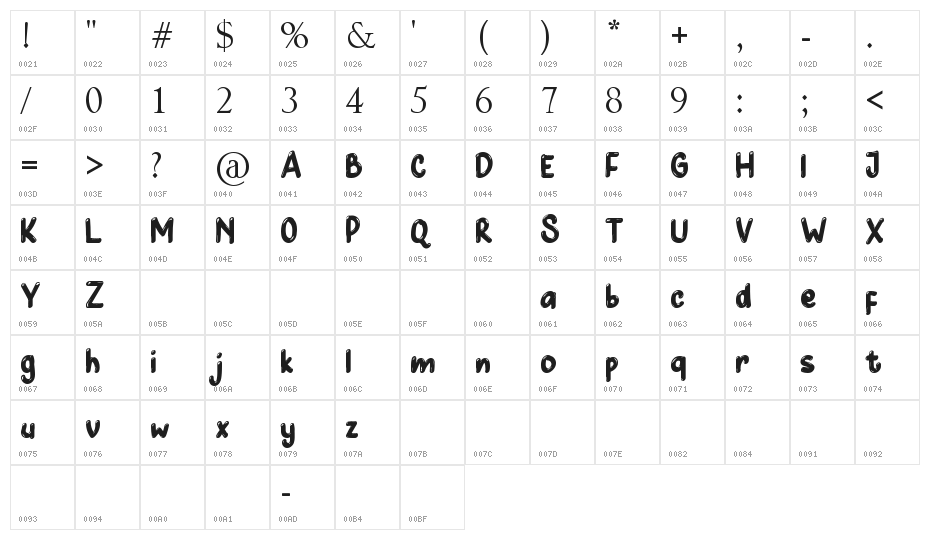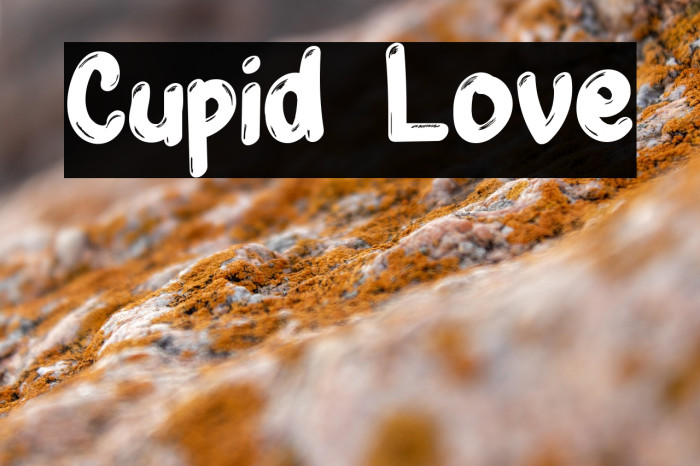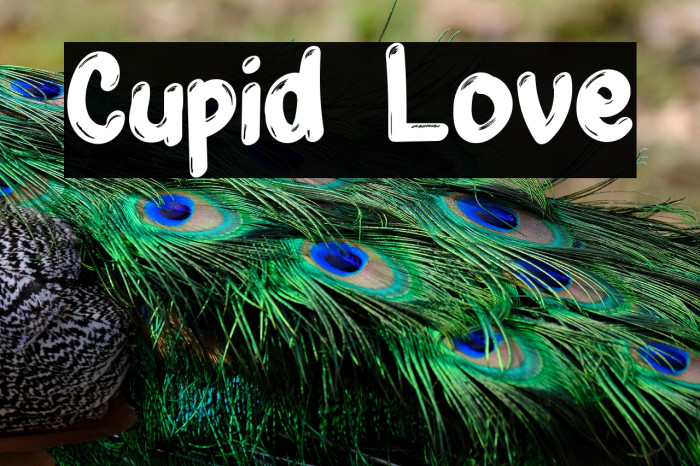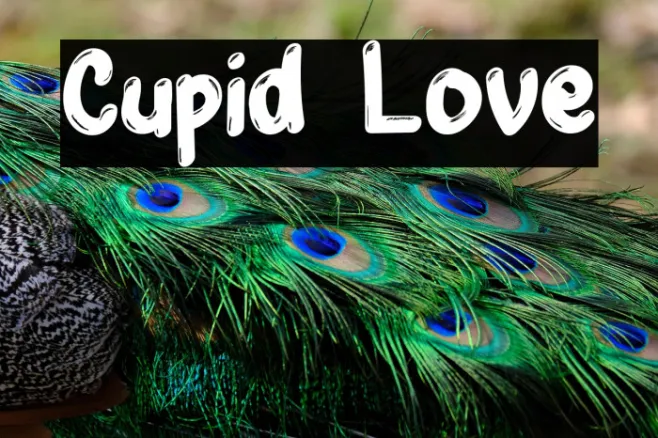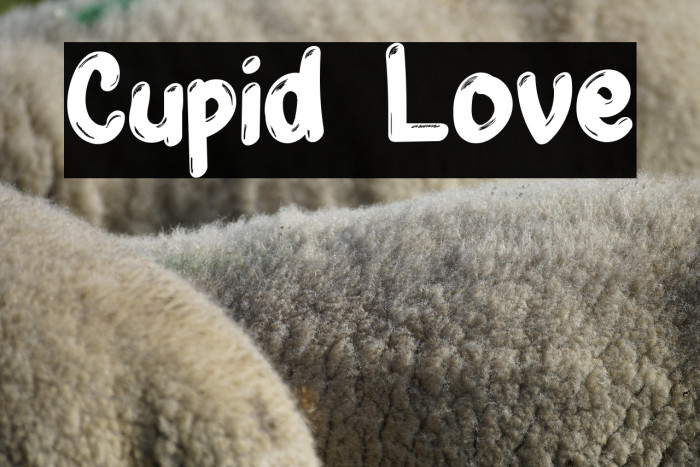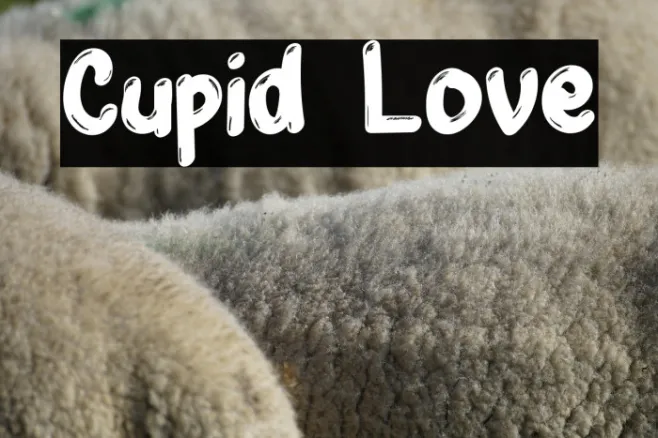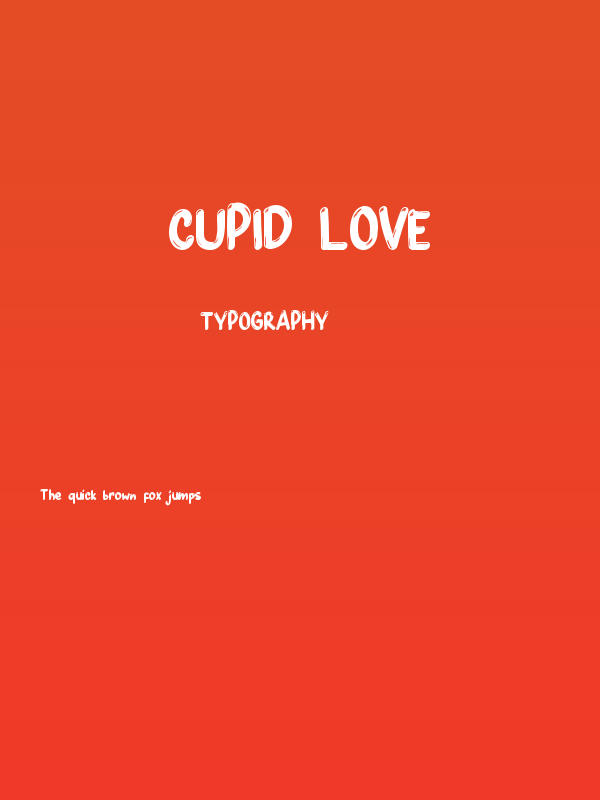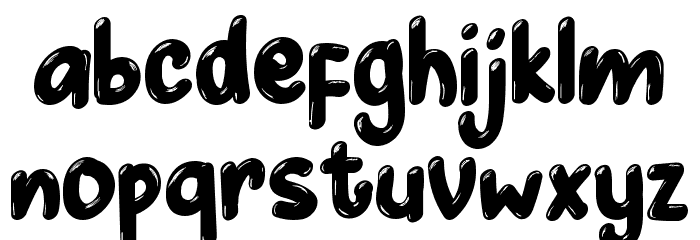
Cupid Love Font
Cupid Love Description
This playful and bold font features a handwritten style with a touch of whimsy. The letters are rounded and slightly uneven, giving it a casual and friendly appearance. The strokes are thick, with a consistent weight throughout, adding to its boldness. The font maintains a good balance between readability and decorative flair, making it suitable for eye-catching designs. The characters are well-spaced, ensuring clarity even in dense text. Its unique style is perfect for projects that require a personal and approachable touch.